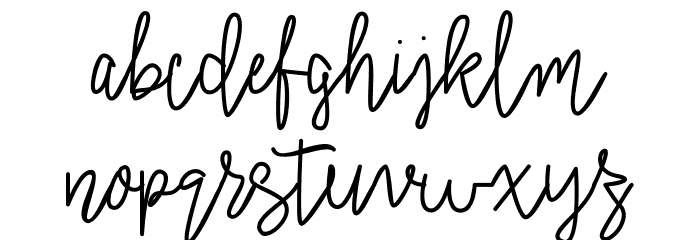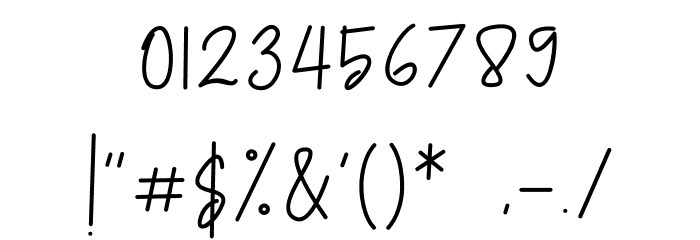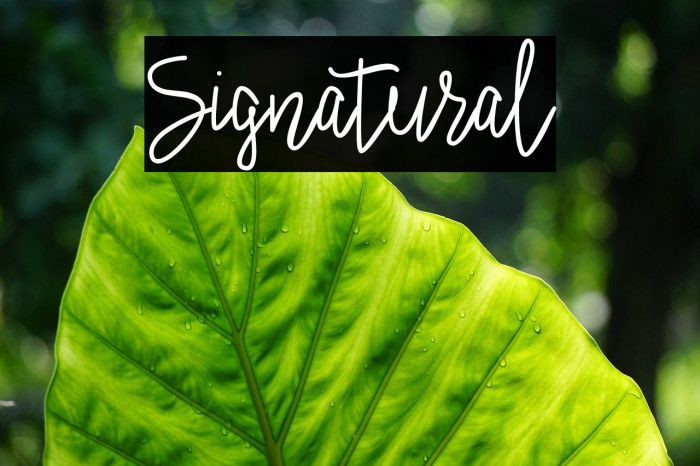
Signatural Font
This font features a handwritten, cursive style with a playful and casual appearance. The letters are connected in a fluid manner, giving it an organic and natural look. The uppercase letters are slightly more structured, while the lowercase letters exhibit a more freeform style. The numbers and special characters maintain the same whimsical and flowing aesthetic. The strokes are consistent in width, providing a uniform appearance throughout the typeface. This font is ideal for projects that require a personal touch, such as invitations, greeting cards, or branding materials that aim to convey a sense of warmth and approachability.
A playful, handwritten cursive font with a fluid and organic style.
- Proposed Projects: Ideal for invitations, greeting cards, personal branding, and creative projects.
- Overall Style: Casual
- Use Case: Logos, Invitations, Greeting Cards